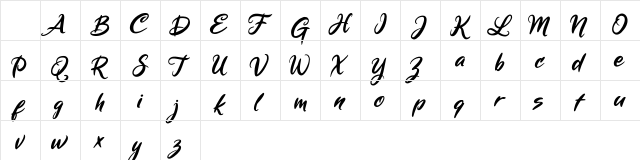
Complete Mickey Steward glyph index. Displaying only characters natively supported by Mickey Steward font.
Mickey Steward is a composed and adaptable typeface that performs quietly and consistently across a wide range of design contexts.
Who designed the Mickey Steward font?